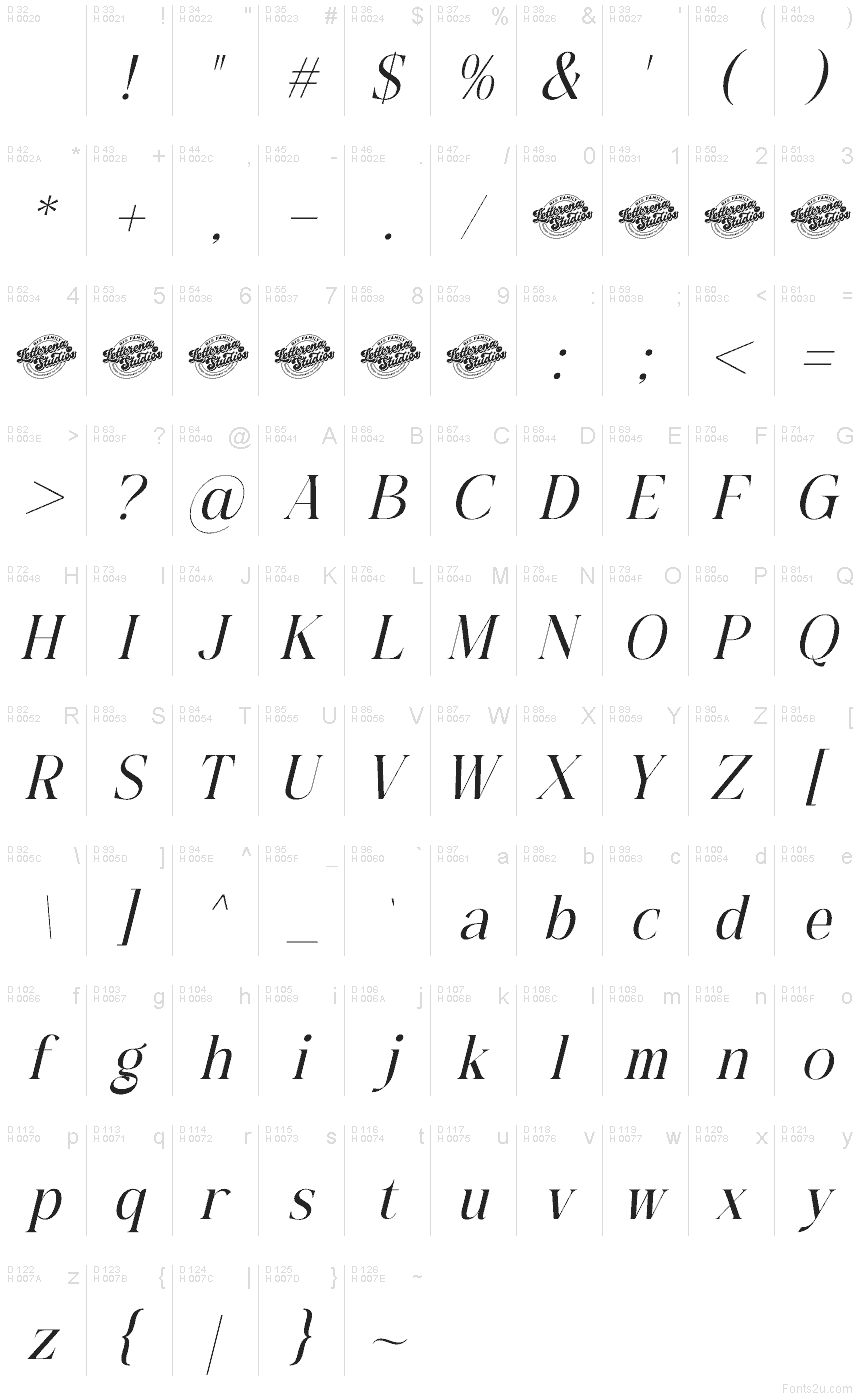
Asgaber DEMO VERSION Italic
Asgaber Italic font by Storytype Studio is a free serif font with an elegant finish. The italic typeface combines a modern aesthetic and sophisticated flair that gives the text a professional appearance. Ligatures and beautiful alternatives add to its fine, swoopy look which leaves readers in awe.
This font is great for headlines, subtitles, logos, invitations, and magazines. Use in branding projects, label designs, packaging designs, stationery designs, web fonts for blogs and portfolios, etc. Asgaber Italic is free for download and easy to use in digital or print formats.